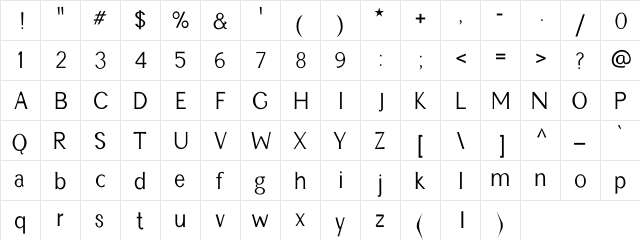
Demoiselle Regular Font Preview
Demoiselle Regular
Design Context for Demoiselle Typeface
Demoiselle is a composed and adaptable typeface that performs quietly and consistently across a wide range of design contexts.